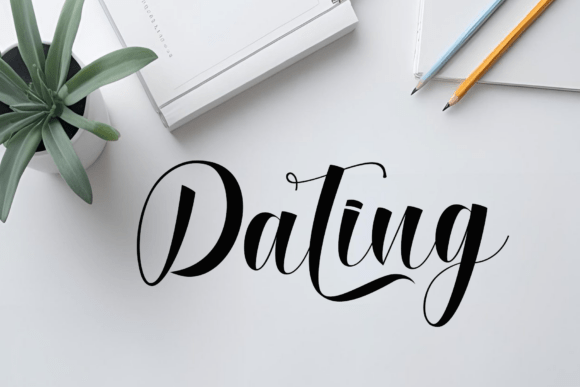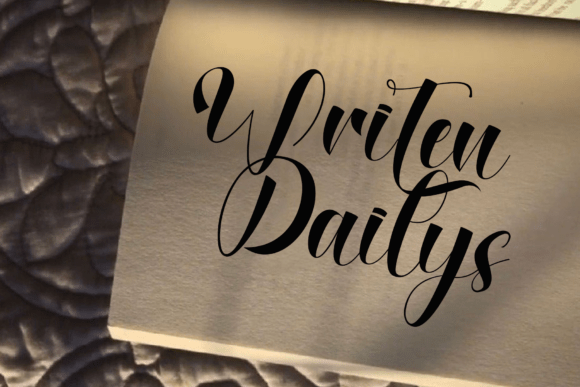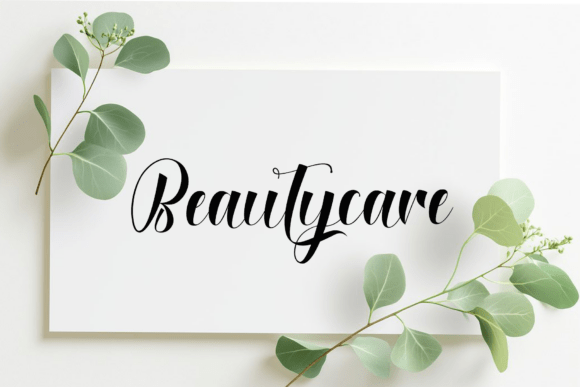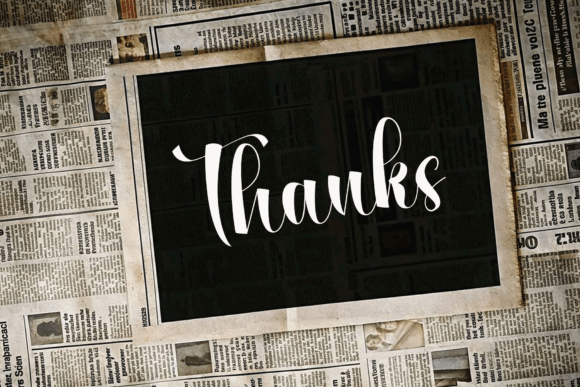
The Birth of a Beautiful Font: A Designer’s Delight
I still remember the time I was working on a project for a client’s birthday party invitation. I had the design concept all sorted out, but I was struggling to find the perfect font to match the elegant and modern vibe I was going for. That’s when I stumbled upon the Birthday Font – a stylish script font that exudes elegance and contemporary charm. It was love at first sight! 💕
A Closer Look: What I Love About Birthday Font
The Birthday Font has quickly become one of my go-to fonts for various design projects. Here’s what I love about it:
- ✨ Elegant and refined letterforms that add a touch of sophistication to any design
- ✅ Fluid curves and carefully crafted strokes that give it a natural, hand-drawn feel
- 💫 Versatile and adaptable for various design applications, from logos to social media graphics
- 🔥 Perfect for designs that require a modern and stylish twist on traditional calligraphy
The Not-So-Perfect: A Few Quirks
While I absolutely adore the Birthday Font, there are a few minor quirks to be aware of:
- 🤔 Some users might find the font a bit too delicate for certain design applications, such as large-scale posters or billboards
- ⚠️ The font’s elegance might not be suitable for very informal or playful designs
- Experiment with the font’s OpenType features, such as ligatures and stylistic alternates, to add more flair to your design
The Designer Inspiration Behind Birthday Font
The Birthday Font was designed with the intention of capturing the beauty of hand-drawn calligraphy with a modern twist. The designer aimed to create a font that would exude elegance and sophistication, while still being versatile and adaptable for various design applications. The result is a font that feels both refined and contemporary, perfect for designers looking to add a touch of luxury to their work.
| Font Name | Birthday Font |
| What type of designs is the Birthday Font best suited for? | The Birthday Font is ideal for designs that require a touch of elegance and sophistication, such as logos, invitations, packaging, and social media graphics. |
| Is the Birthday Font suitable for large-scale designs? | While the Birthday Font is elegant and refined, it may not be the best choice for very large-scale designs, such as billboards or posters, due to its delicate nature. |
| Does the Birthday Font support OpenType features? | Yes, the Birthday Font supports OpenType features, such as ligatures and stylistic alternates, which can add more flair to your designs. |